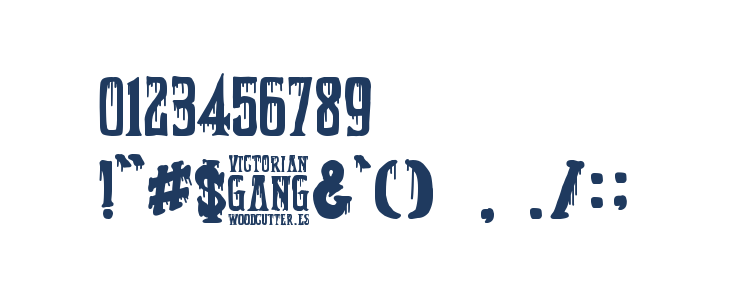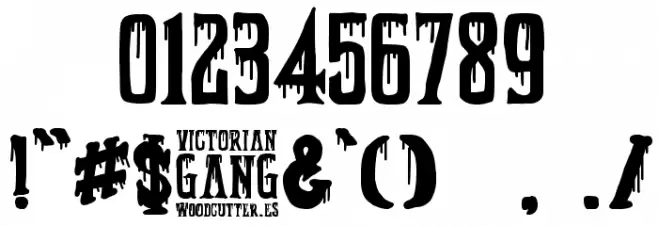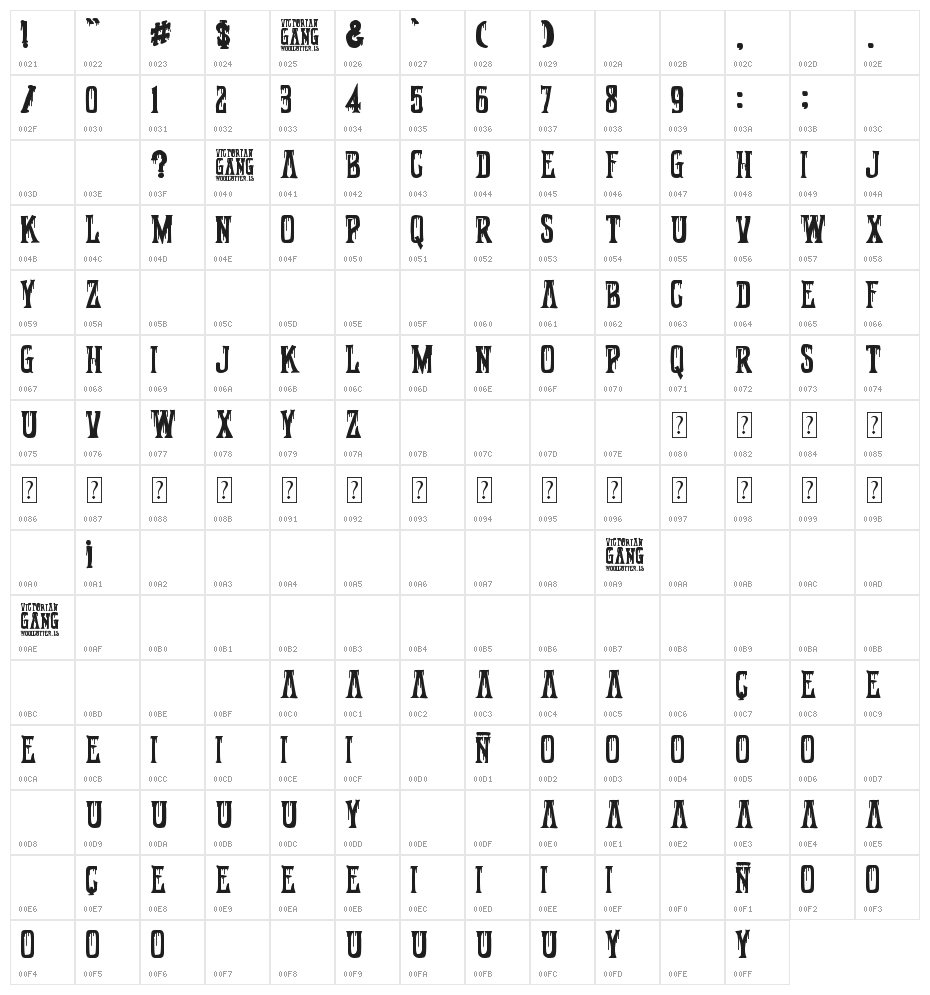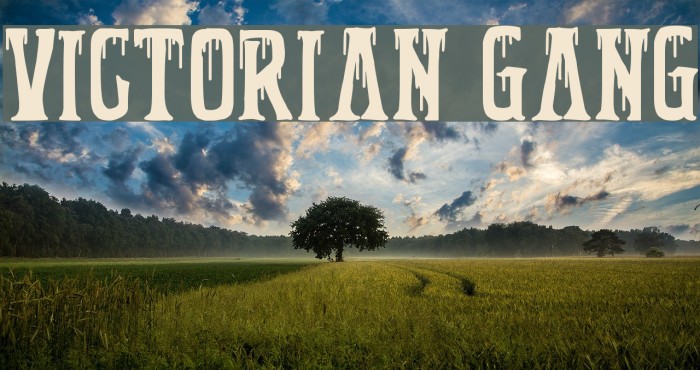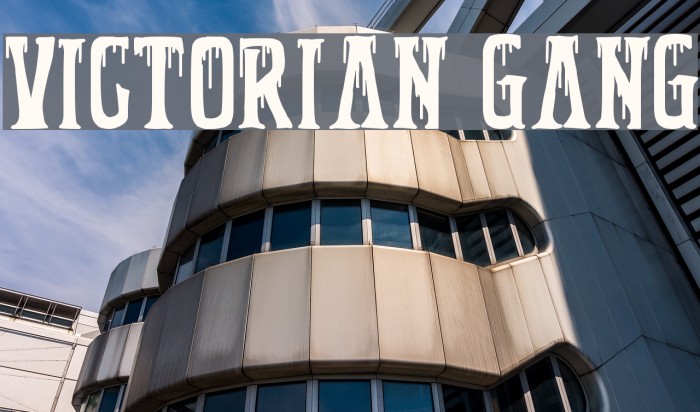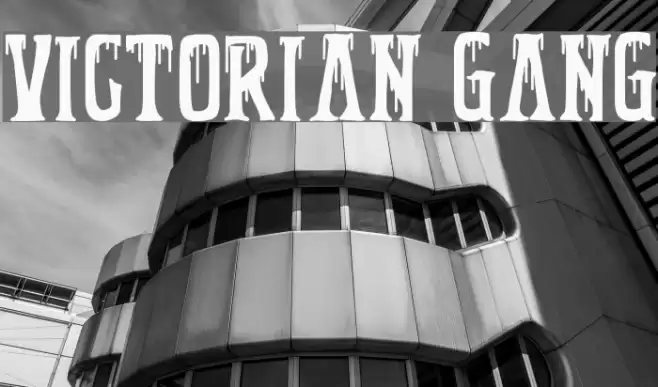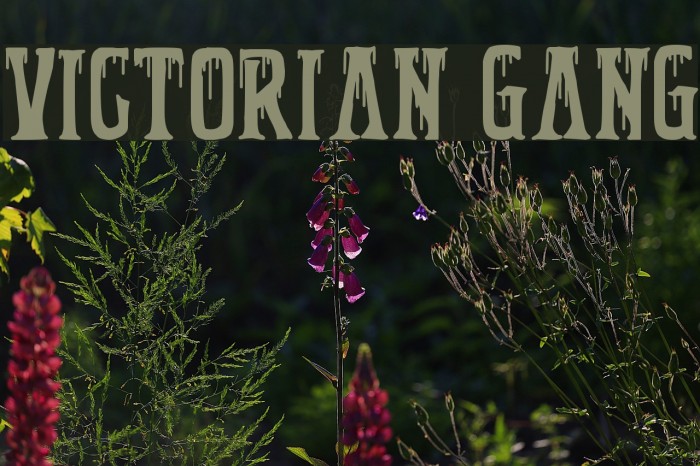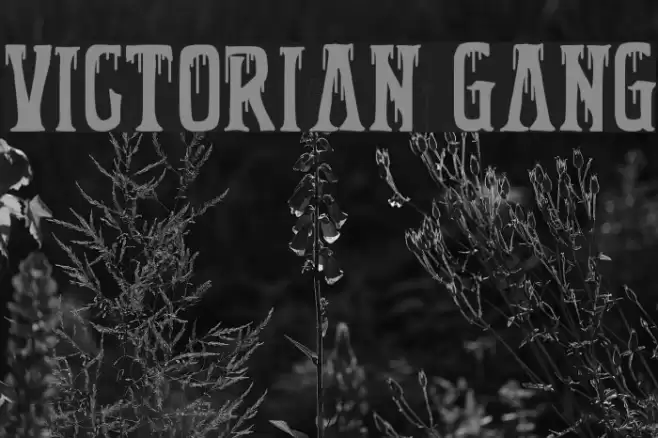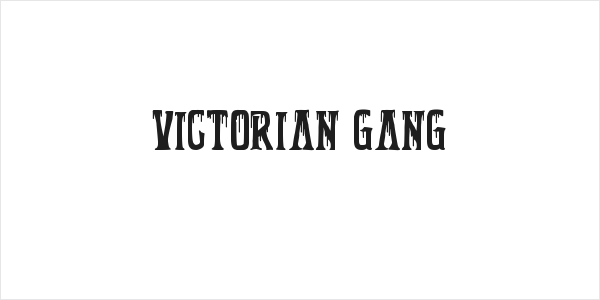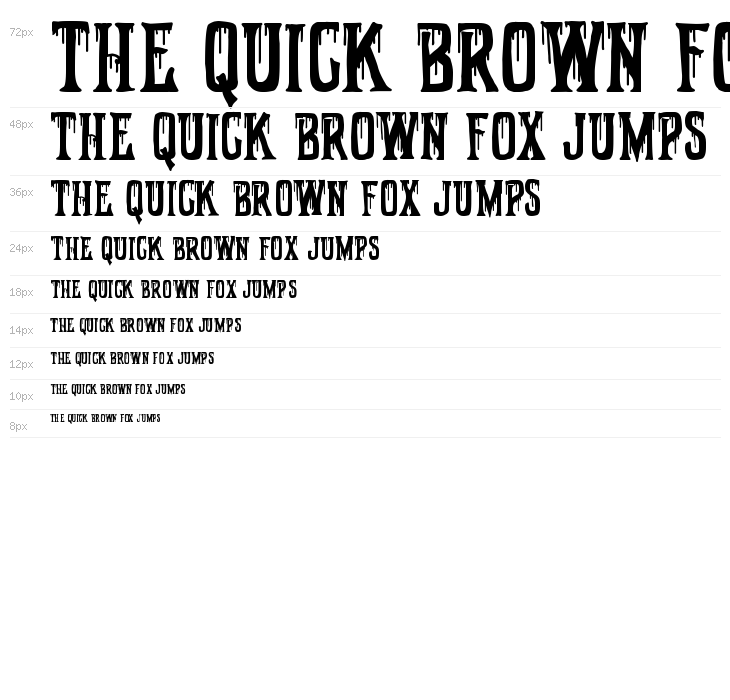
Victorian Gang Font
Victorian Gang Description
This font features a bold and decorative style with a distinct Victorian flair. The characters are adorned with intricate details and flourishes, giving them a vintage and somewhat gothic appearance. The uppercase letters are particularly elaborate, with sharp serifs and unique embellishments that resemble dripping or melting effects. The numbers and special characters maintain this ornate style, ensuring a cohesive look across all glyphs. This font's dramatic and eye-catching design makes it ideal for projects that require a touch of historical elegance or a bold statement.
Overall StyleVintage, Gothic, Decorative
Use CaseHeadlines, Posters, Logos
Proposed ProjectsPerfect for vintage-themed posters, Halloween invitations, theatrical productions, or any project needing a dramatic, historical touch.